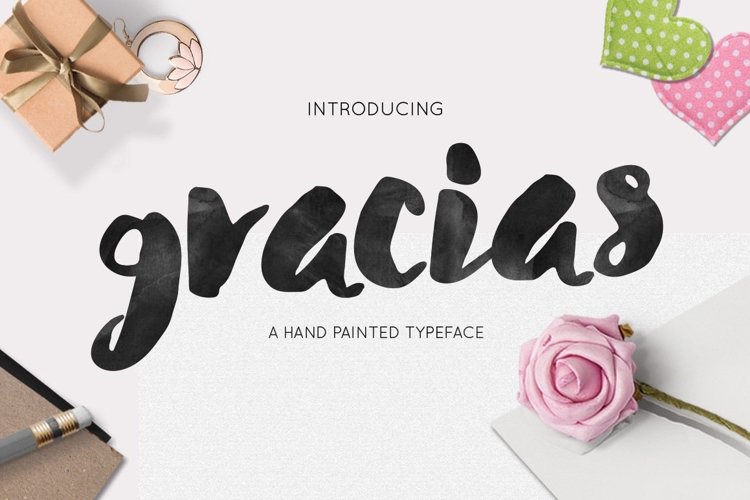
Introducing "Gracias Handmade Typeface" Can be used for various purposes namely headings, logos, wedding invitations, t-shirts, letterheads, signages, labels, news, posters, badges etc. Product Content: Gracias Web Font woff Features: Uppercase Lowercase Numeral & Punctuations (Open Type Standard) Use a program that supports OpenType features such as Adobe Illustrator CS, Adobe Indesign & CorelDraw X6-X7 to access the full features of this typeface. How-to pdf included in the package. Feel free to contact me for additional supports.